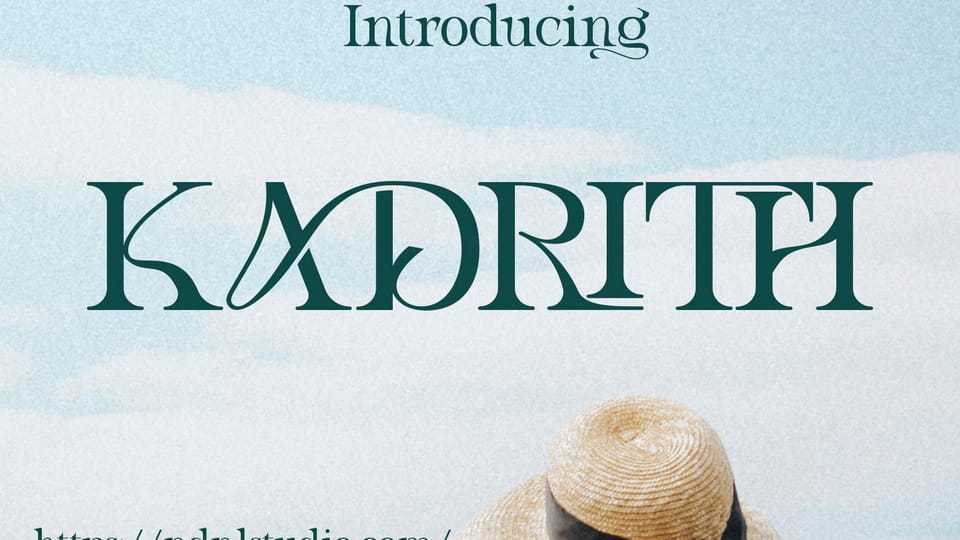
Download Kadrith font, a modern serif typeface that embodies both elegance and sophistication. With graceful curves and a timeless structure, it brings a distinctive balance.
Designer: NDNL Studio